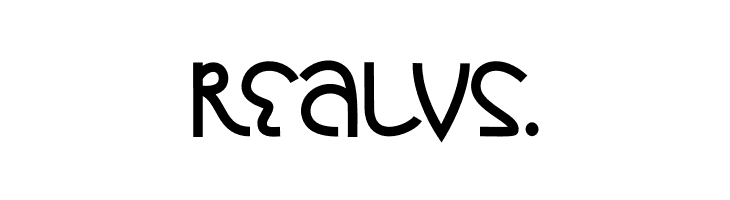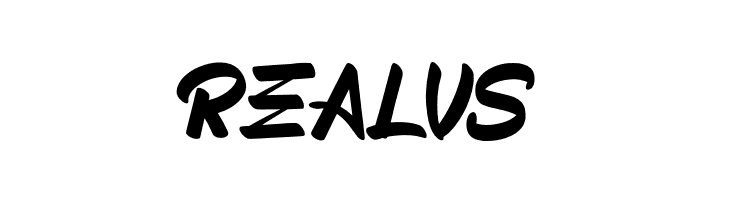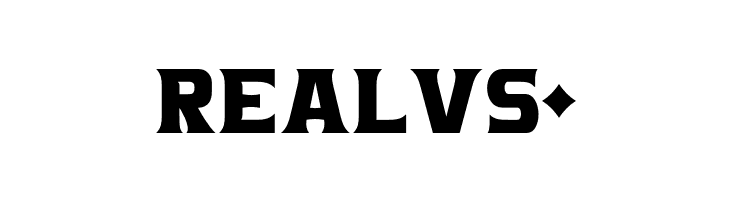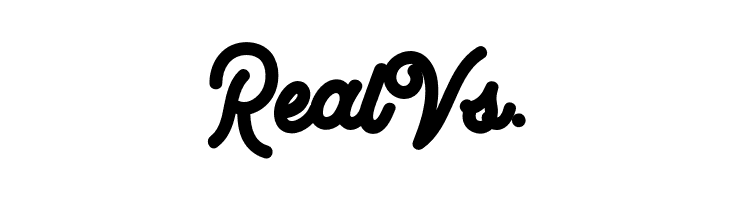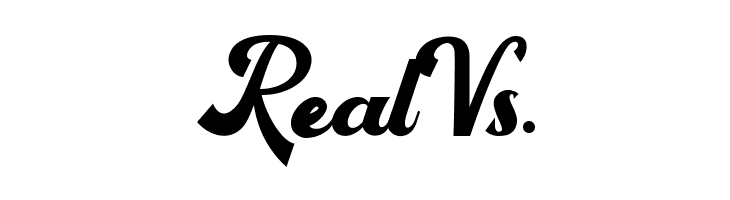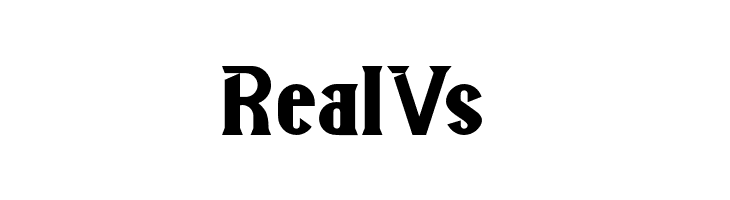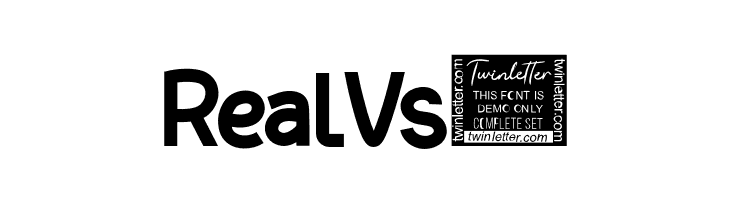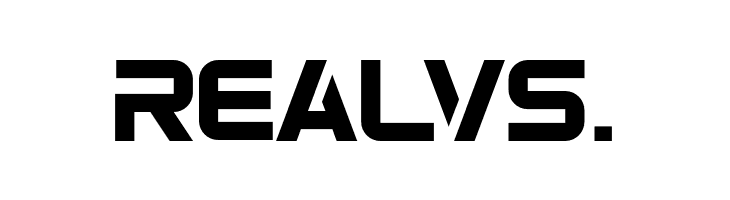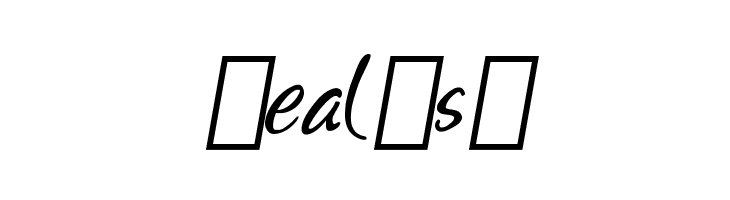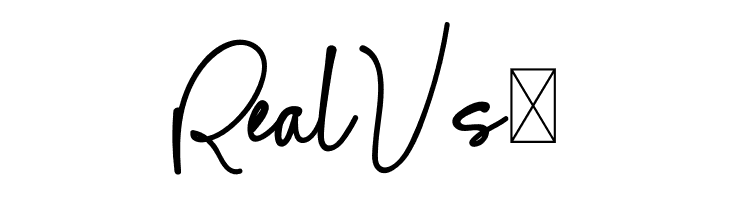
A bold, angular font with a strong geometric style.
A bold, cursive font with a playful and energetic style.
A bold, angular serif font with a modern vintage flair.
A bold, Blackletter-inspired font with sharp, angular lines and decorative elements.
A bold, decorative font with a unique textured pattern.
An elegant, decorative script font with ornate swirls and heart motifs.
A playful, bold font with rounded, whimsical characters.
A playful and whimsical font with rounded, consistent strokes and unique character designs.
An elegant script font with flowing cursive style and intricate swashes.
A bold, geometric font with a modern and clean design.
A bold, geometric font with a modern and structured design.
A bold, playful script font with thick, rounded strokes and a whimsical style.
A bold, playful font with thick, rounded letters and a 3D effect.
A dynamic handwritten font with expressive, flowing strokes and a casual, artistic style.
A bold, dynamic script font with high contrast and flowing cursive style.
An elegant and flowing script font with a sophisticated, handwritten style.
A playful and elegant script font with a handwritten style.
An elegant, flowing script font with high contrast and an italic slant.
A bold, handwritten-style font with dynamic, slanted characters.
A bold, rugged, hand-drawn font with a distressed, grunge-like appearance.
A bold, geometric font with a modern, playful, and artistic style.
A playful, casual handwritten font with irregular strokes.
A bold, condensed, and modern font with a strong vertical emphasis.
A modern, high-contrast font with elegant, geometric forms.
A high-contrast, elegant font with unique curves and angles.
A bold, high-contrast serif font with a vintage, decorative style.
A bold, decorative font with vintage, western-inspired serifs and high contrast strokes.
A playful, hand-drawn font with bold, irregular strokes and a whimsical style.
A playful, bold font with a hand-drawn, whimsical style.
A playful, handwritten font with tall, narrow uppercase letters and smooth strokes.
A bold, hand-drawn style font with a playful and dynamic appearance.
An elegant, cursive font with intricate loops and swashes, perfect for artistic projects.
A bold, playful handwritten font with rounded edges and a casual style.
A bold, rounded font with smooth curves and a modern, friendly style.